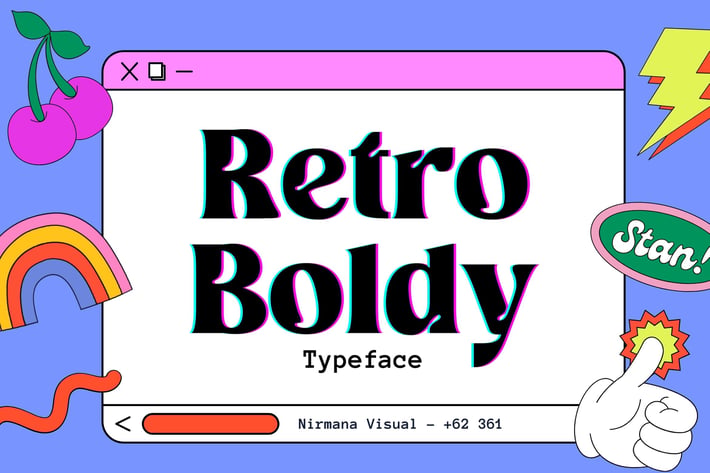
Retro Boldy - Logo Font
Retro Boldy, a Bold, classy, contemporary of script font, inspired by 90s Era.
Retro Boldy offers beautiful typographic harmony for a diversity of design projects, including logos & branding, social media posts, advertisements & product designs.
full set of lowercase and uppercase letters, numerals and punctuation, multilingual symbols, lowercase.